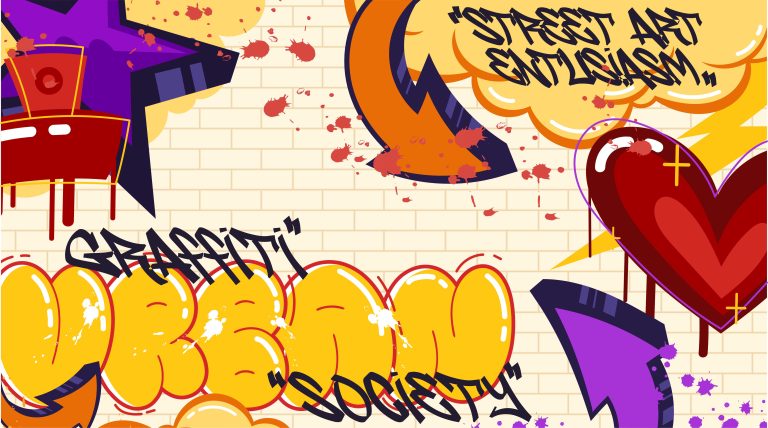
Discover the Best-Selling Monoline Graffiti Fonts: Our Top 5 Picks
When it comes to adding a unique and edgy touch to your creative projects, few styles are as impactful as graffiti fonts. Among the diverse range of graffiti fonts available, monoline graffiti fonts stand out for their sleek, continuous lines and modern aesthetic. Whether you’re working on a branding project, a poster design, or a digital artwork, these fonts can bring a contemporary, urban vibe to your work. In this blog post, we’ve curated a list of the five best-selling monoline graffiti fonts that will elevate your designs and inspire your creativity. Read on to discover these top picks and see how they can transform your next project.
Here are the best-selling monoline graffiti fonts from Cikareotype studio, celebrated for their unique blend of urban style and modern simplicity. These top fonts are ideal for various creative projects, offering both versatility and distinctive appeal.
- Dirty Lizard
“Dirty Lizard” is a monoline graffiti font that incorporates swash and crown characters. Monoline fonts typically consist of letterforms with uniform line thickness, providing a clean and consistent appearance. In this case, the addition of swash and crown characters adds decorative elements and style variations to the font.
With “Dirty Lizard,” you can achieve a graffiti-inspired look that combines clean, consistent lines with decorative elements. These extra characters can enhance the visual appeal and uniqueness of your text, making it suitable for various design projects, especially those where a blend of a clean monoline style with decorative elements is desired.
2. Snakehead
“Snakehead” is a monoline graffiti font that features an abundance of swashes, including swashes below characters and some above characters, resembling various crown-like elements. Fonts like these are often used to create expressive and artistic designs with the distinctive flair of graffiti art. With a variety of swash options, you have the flexibility to customize the look of your text and give your design a unique and eye-catching touch. Fonts like “Snakehead” are commonly employed in street art projects, posters, or other designs that call for creative and bold typography.
3. Dark Sider
Designed with the user in mind, Dark Sider makes it easier than ever to create stunning graffiti designs. Its natural, handwritten style adds an authentic graffiti look to any project. This versatile font is perfect for a wide range of media, including packaging, logos, labels, posters, shirt designs, bulletins, and various other typography needs. Whether you’re aiming for an urban edge or a casual, artistic vibe, Dark Sider’s unique aesthetic will elevate your designs, making them stand out. Embrace the creative potential of this font and bring a fresh, dynamic touch to your projects with Dark Sider.
4. Straight Wave
“Straight Wave” is a graffiti font written manually in a monoline style, featuring characters inspired by natural handwriting. The font combines consistent line widths (monoline) with a graffiti-inspired impression in each letter. Its free-flowing yet consistently weighted lines offer an urban and authentic vibe. It’s suitable for various designs that require a natural handwritten touch with a hint of graffiti influence.
5. Street Rats
A Handwritten font that captures the essence of Realistic monoline graffiti style. This font features an impressive swash, perfect for adding a touch of urban flair to your designs. Street Rats is designed to elevate a wide range of design projects to new heights, offering a bold and dynamic aesthetic that stands out. Whether you’re working on branding, headings, designs, invitations, signatures, logos, or labels, this font brings a unique and edgy look to your work. It’s also ideal for posters, apparel, social media graphics, and other creative projects that demand a distinctive and contemporary touch. Embrace the urban spirit and unleash your creativity with Street Rats, a font that promises to enhance every design with its authentic graffiti style and unparalleled versatility.
We hope this curated list of the top 5 best-selling monoline graffiti fonts has inspired you and provided valuable options for your next design project. Each font brings its own unique style and flair, ensuring that you can find the perfect match for any creative endeavor. Whether you’re aiming to add an urban edge to your branding, create eye-catching posters, or simply explore new typography styles, these fonts offer versatility and distinctive appeal. Don’t hesitate to experiment and see how these fonts can transform your designs.